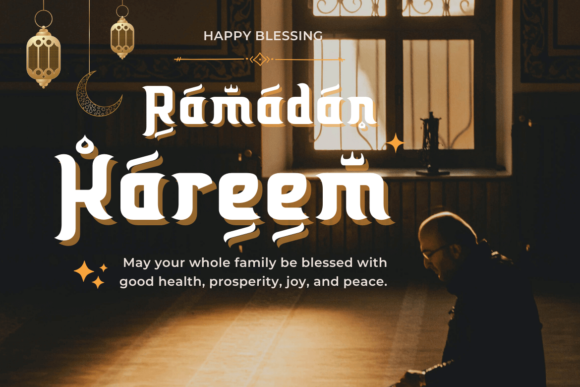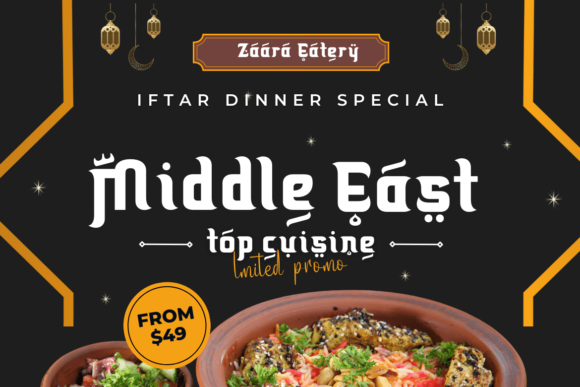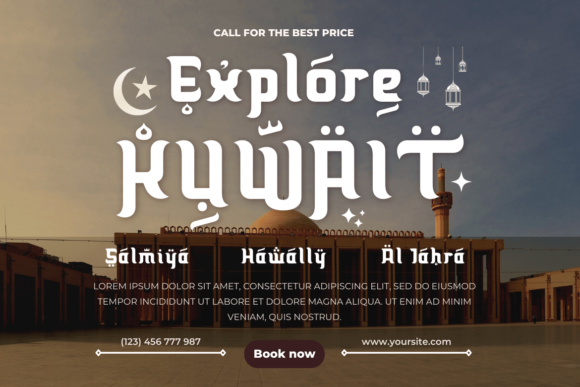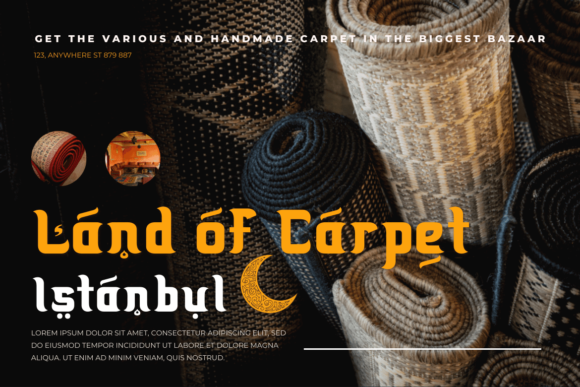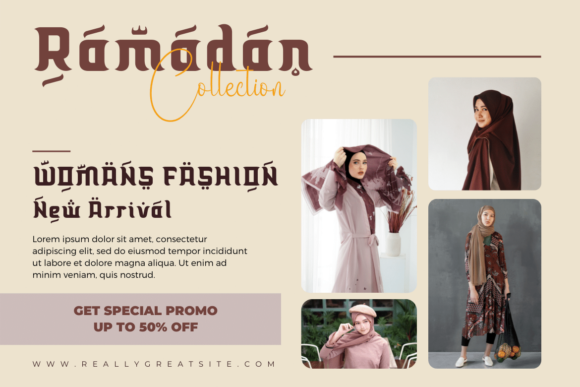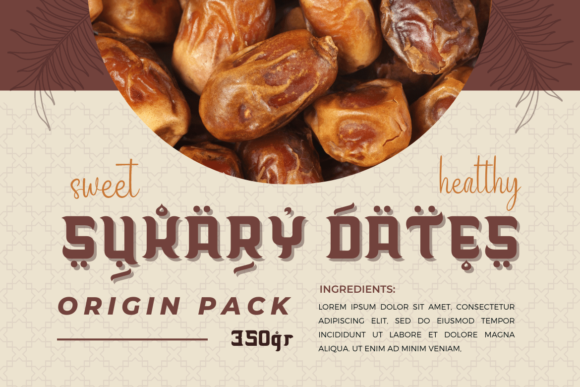
Introduction to Makwus Font
Imagine you’re brainstorming ideas for a new product launch, and you want to create a buzz on social media. You need a font that’s not only eye-catching but also reflects the unique essence of your brand. This is where the Makwus Font comes in – a cool, bold, and Arabic-styled display font that’s perfect for making a statement.
As a designer, you’re always on the lookout for high-quality design resources that can elevate your creative projects. The Makwus Font is a valuable addition to your design arsenal, offering a unique aesthetic that can be used for product packaging, branding projects, magazine covers, and more. With its transparent background and clean lines, this font is sure to grab attention and leave a lasting impression.
Key Features of Makwus Font
- High-quality font design for creative projects, ensuring a unique and professional look.
- Designed with a modern aesthetic, making it perfect for a wide range of creative projects, from logos to brochures.
Honest Review: Makwus Font
What works well is its high quality design, which makes it perfect for digital art and design projects. The font also comes with a transparent background, making it easy to work with and customize.
- Perfect for digital art and design projects
However, I did encounter some limitations. The font is quite limited in terms of style options, and it may not be suitable for projects that require a lot of customization.
- Limited style options
- May not be suitable for highly customized projects
Overall, I’m impressed with the Makwus Font. It’s a great design resource for anyone looking for a modern and unique font for their creative project. While it may have some limitations, it’s definitely worth checking out.
The Makwus Font is ideal for use in creative projects that require a unique and high-quality font. Some common use cases include: